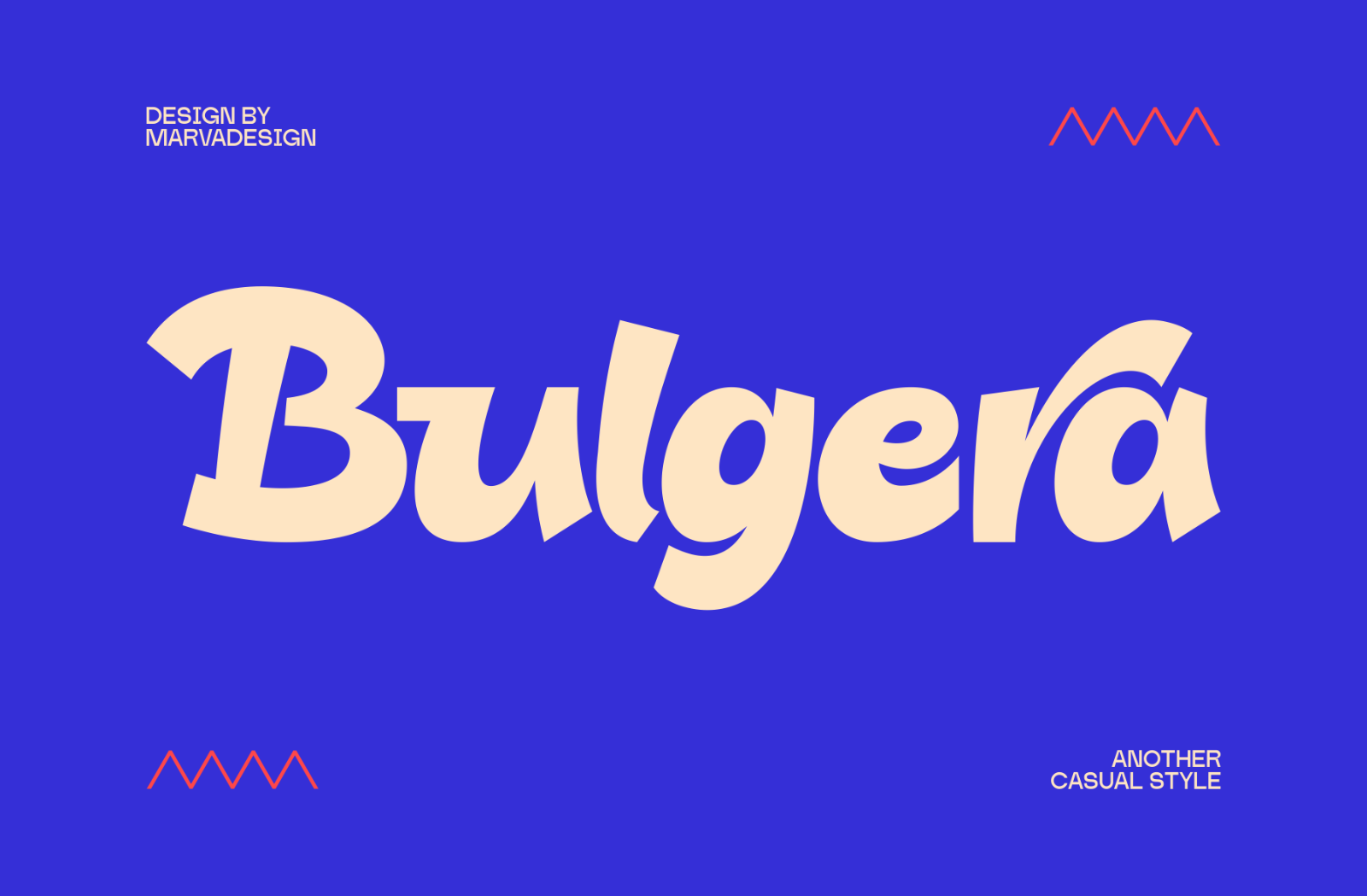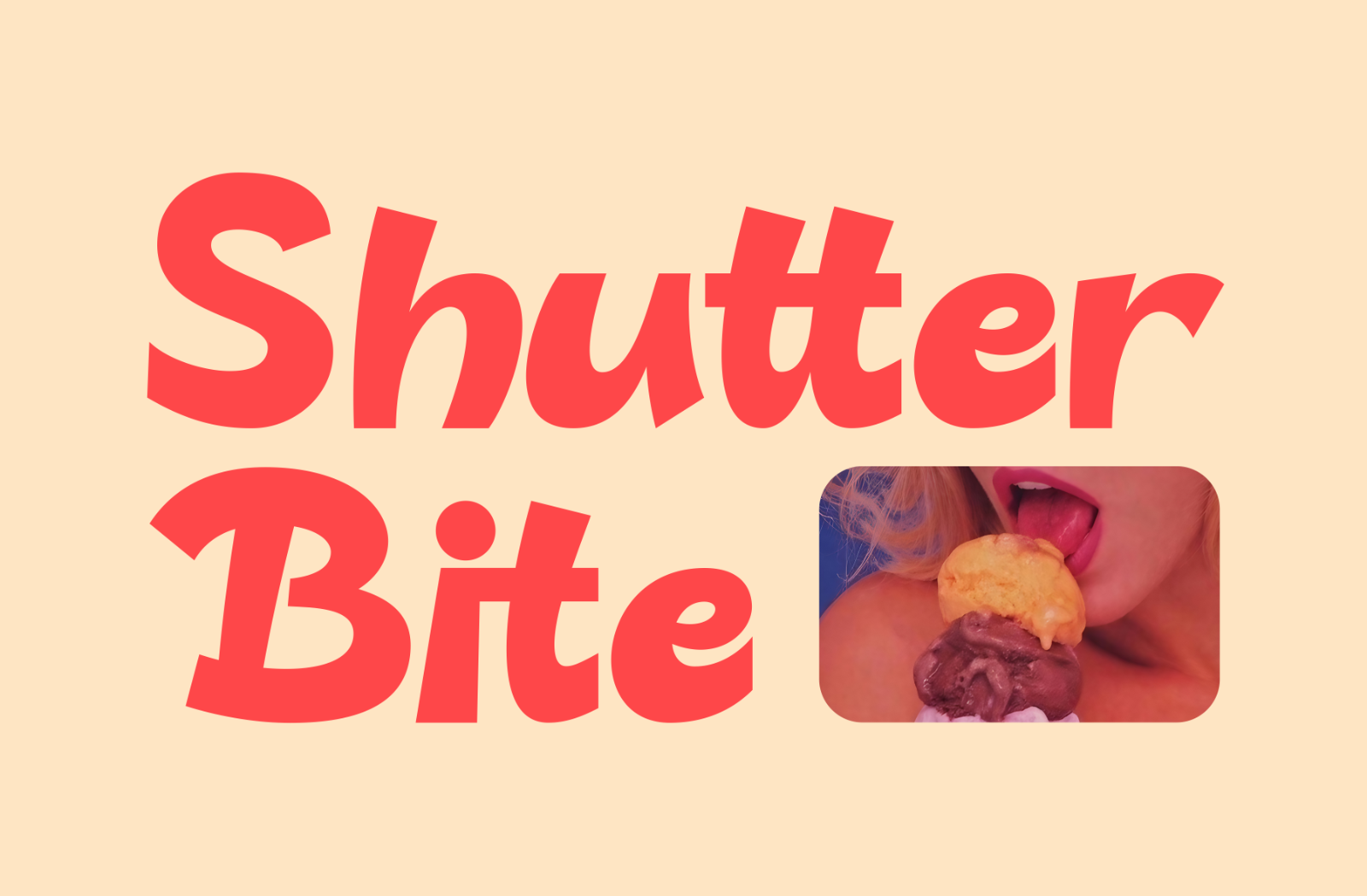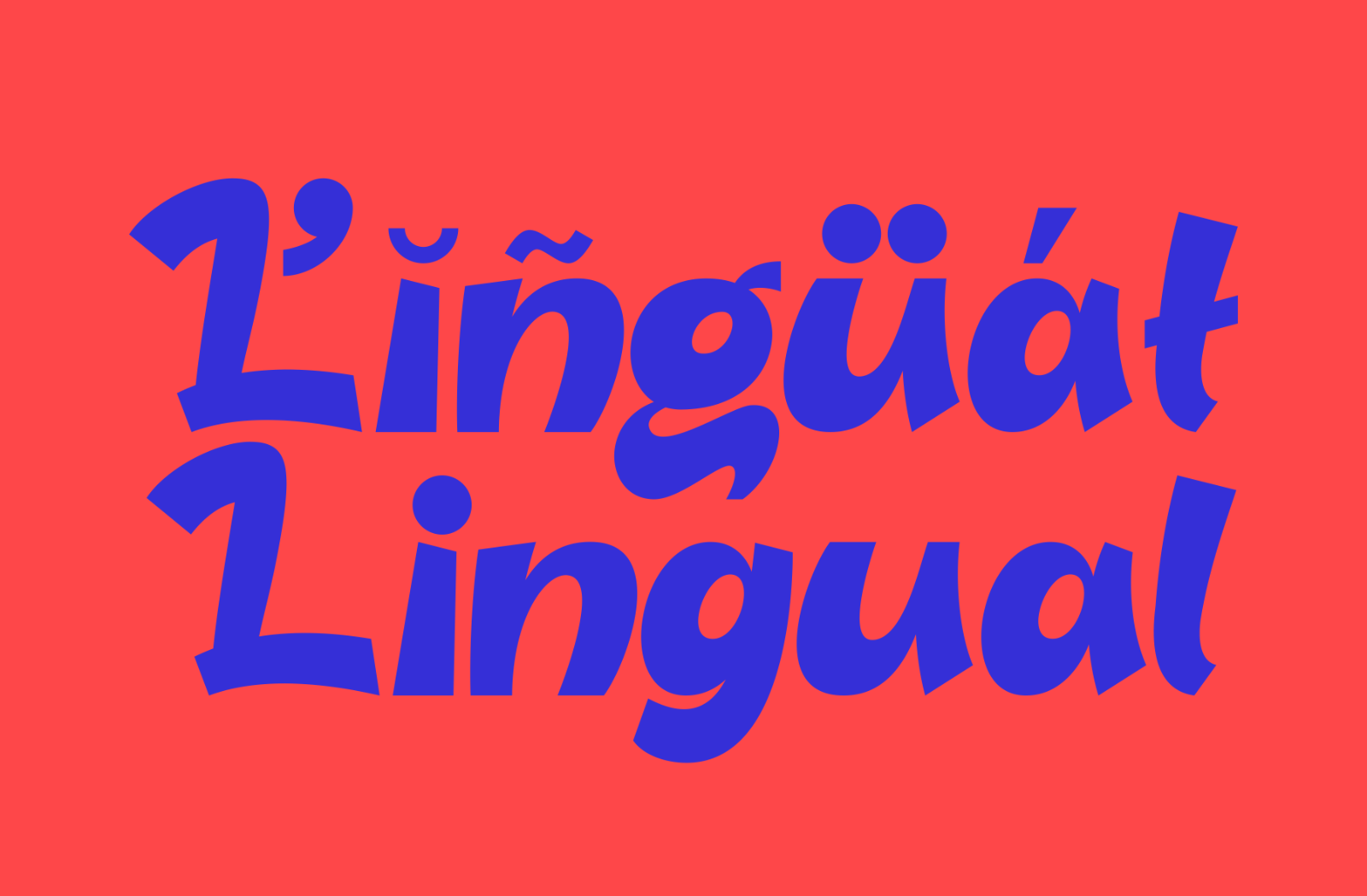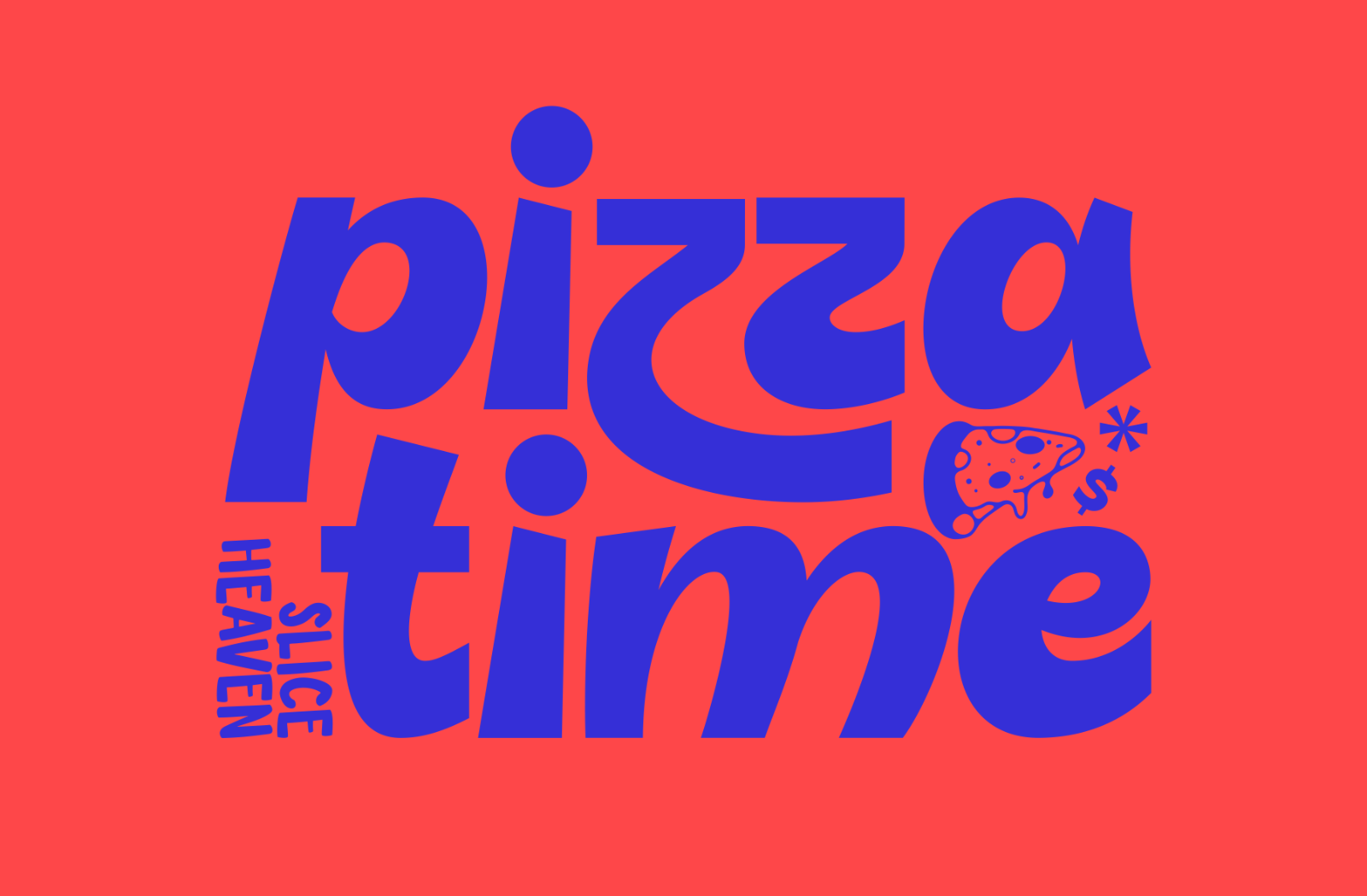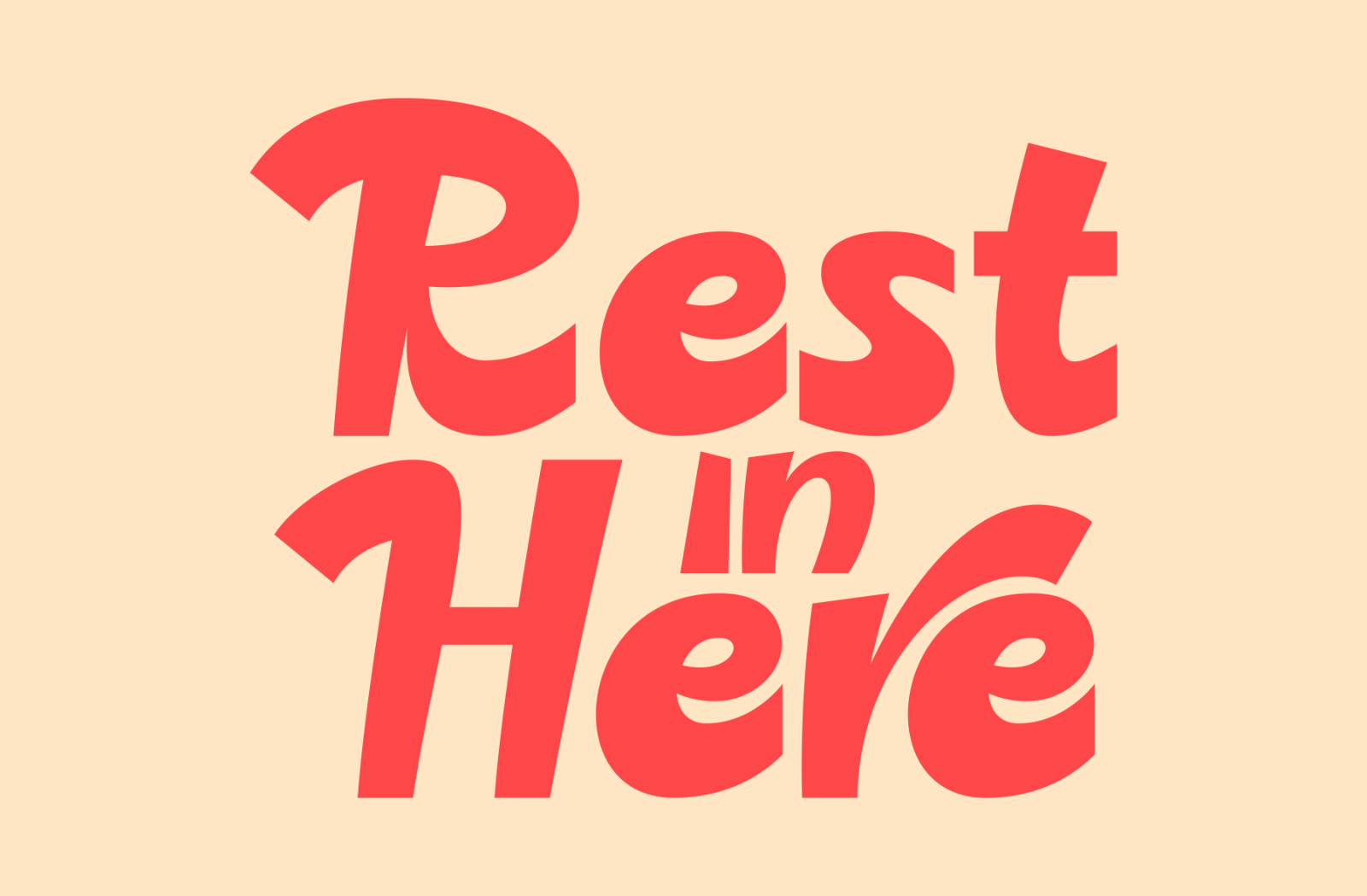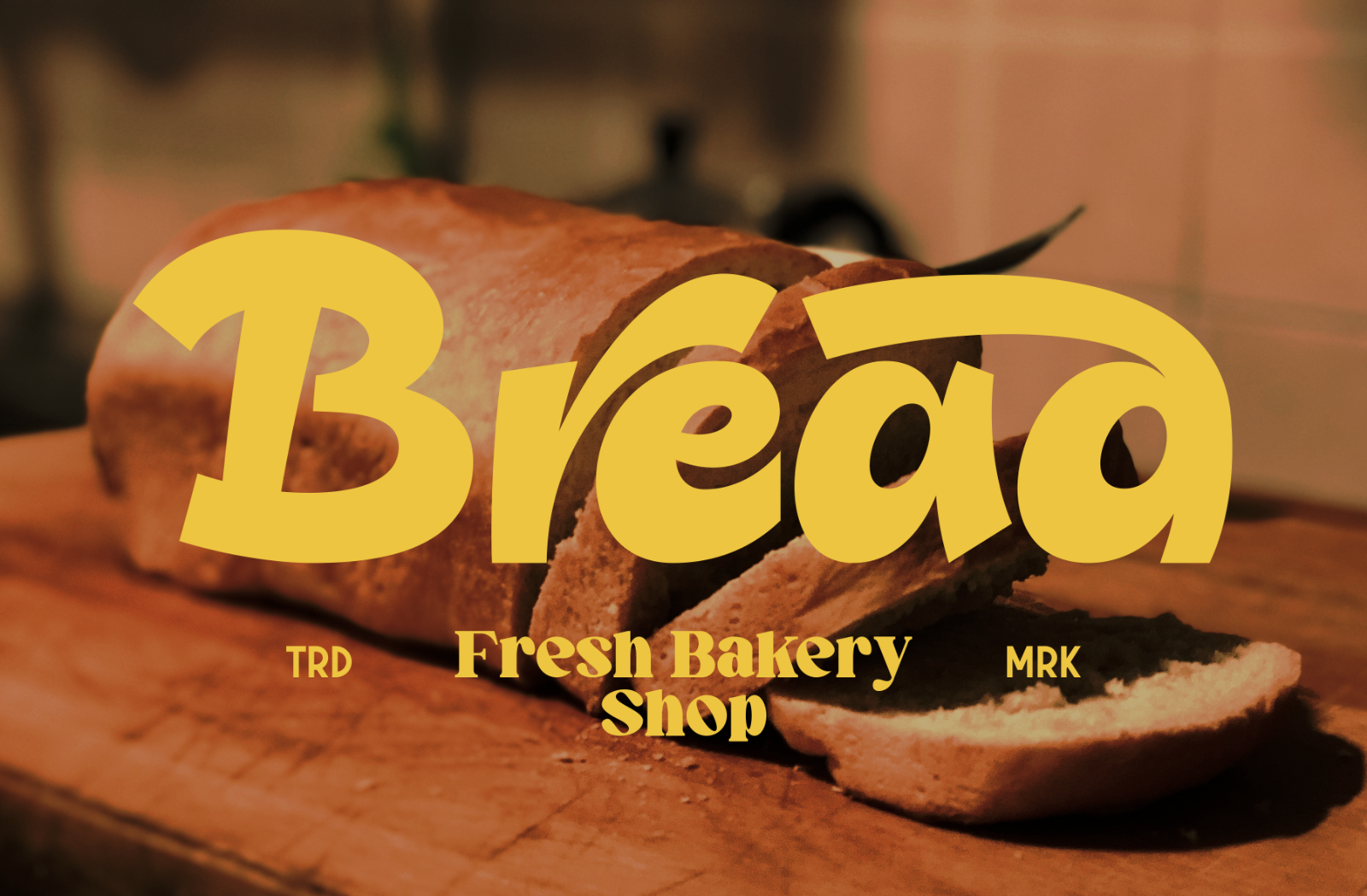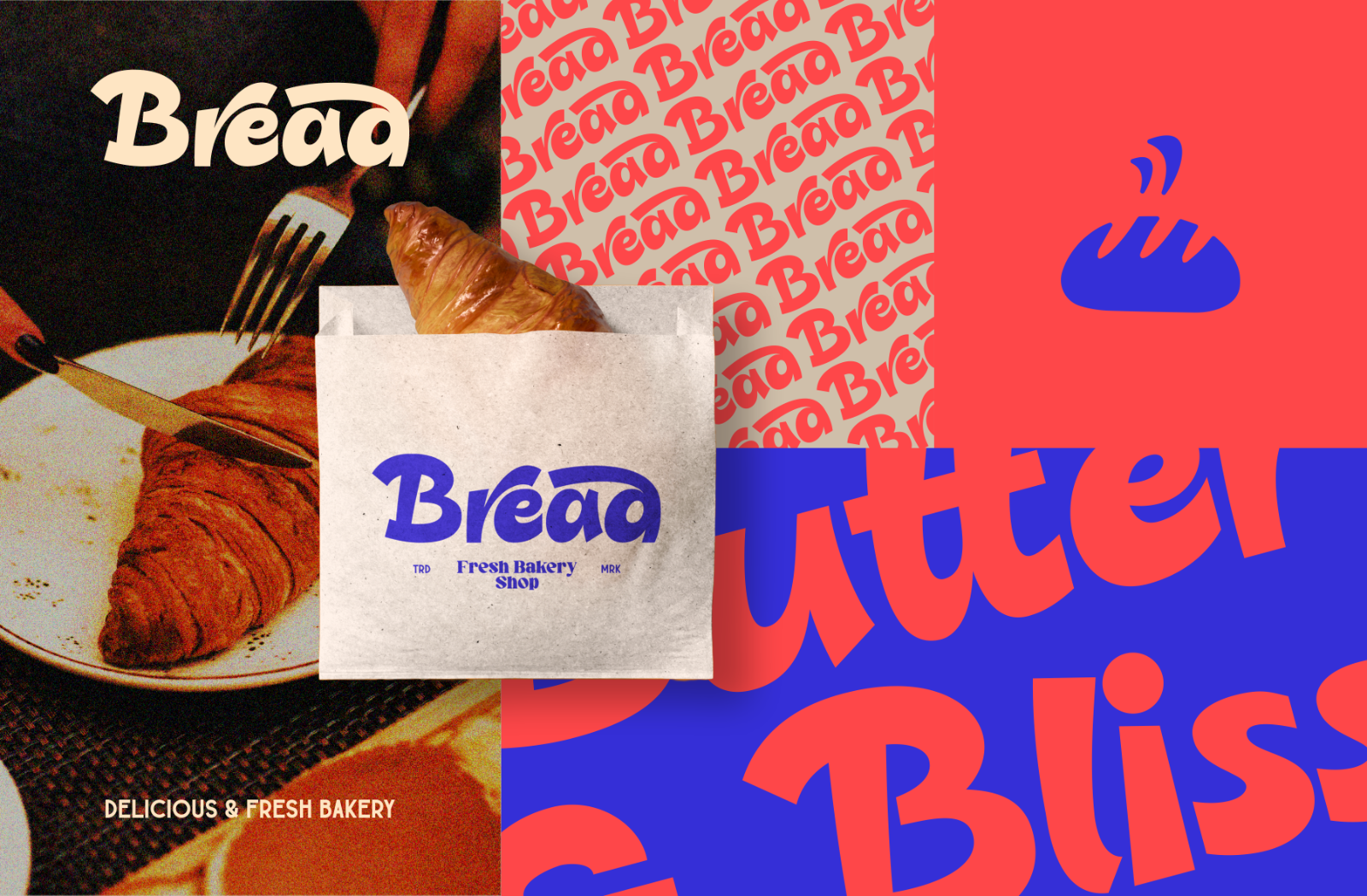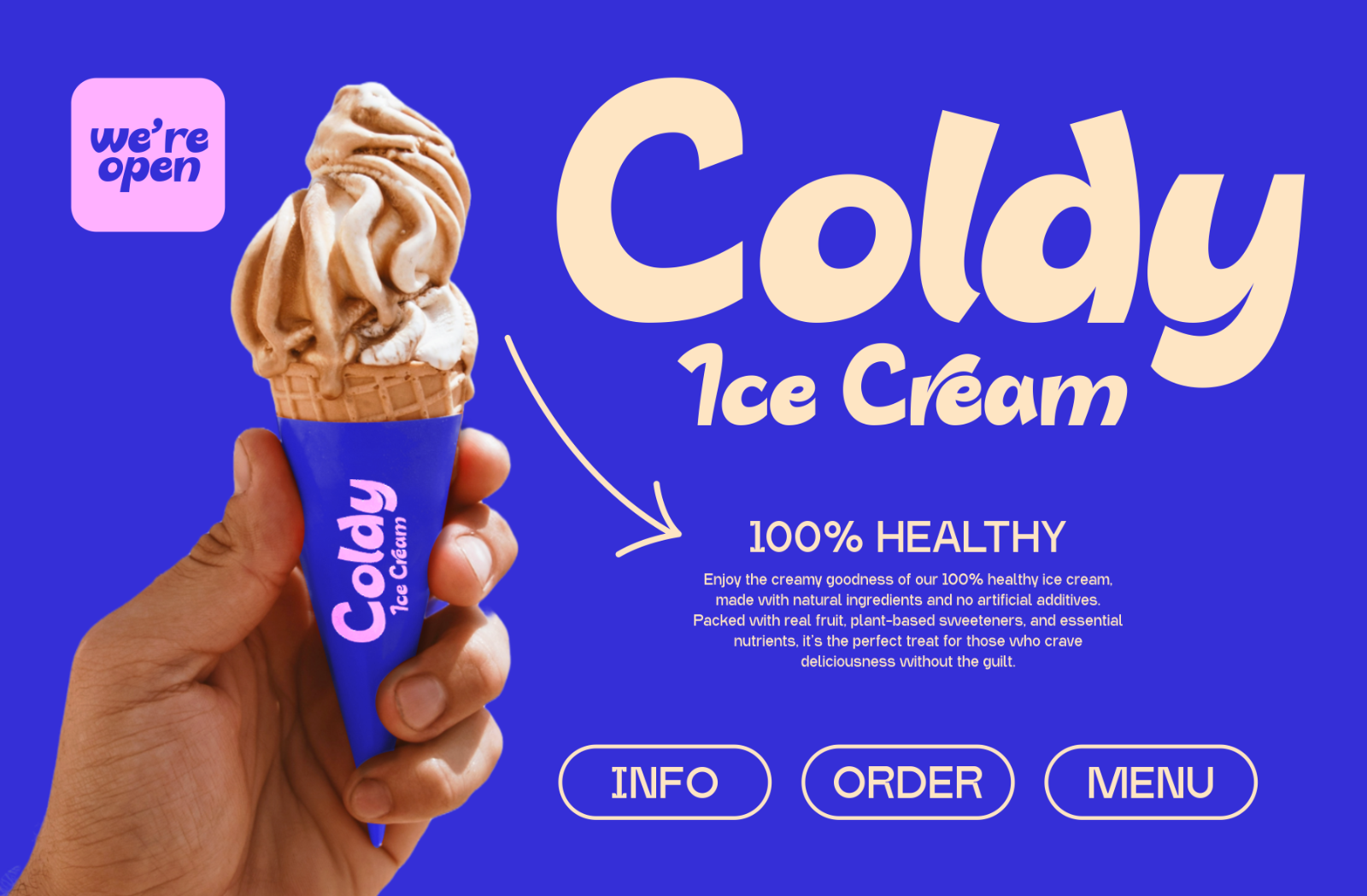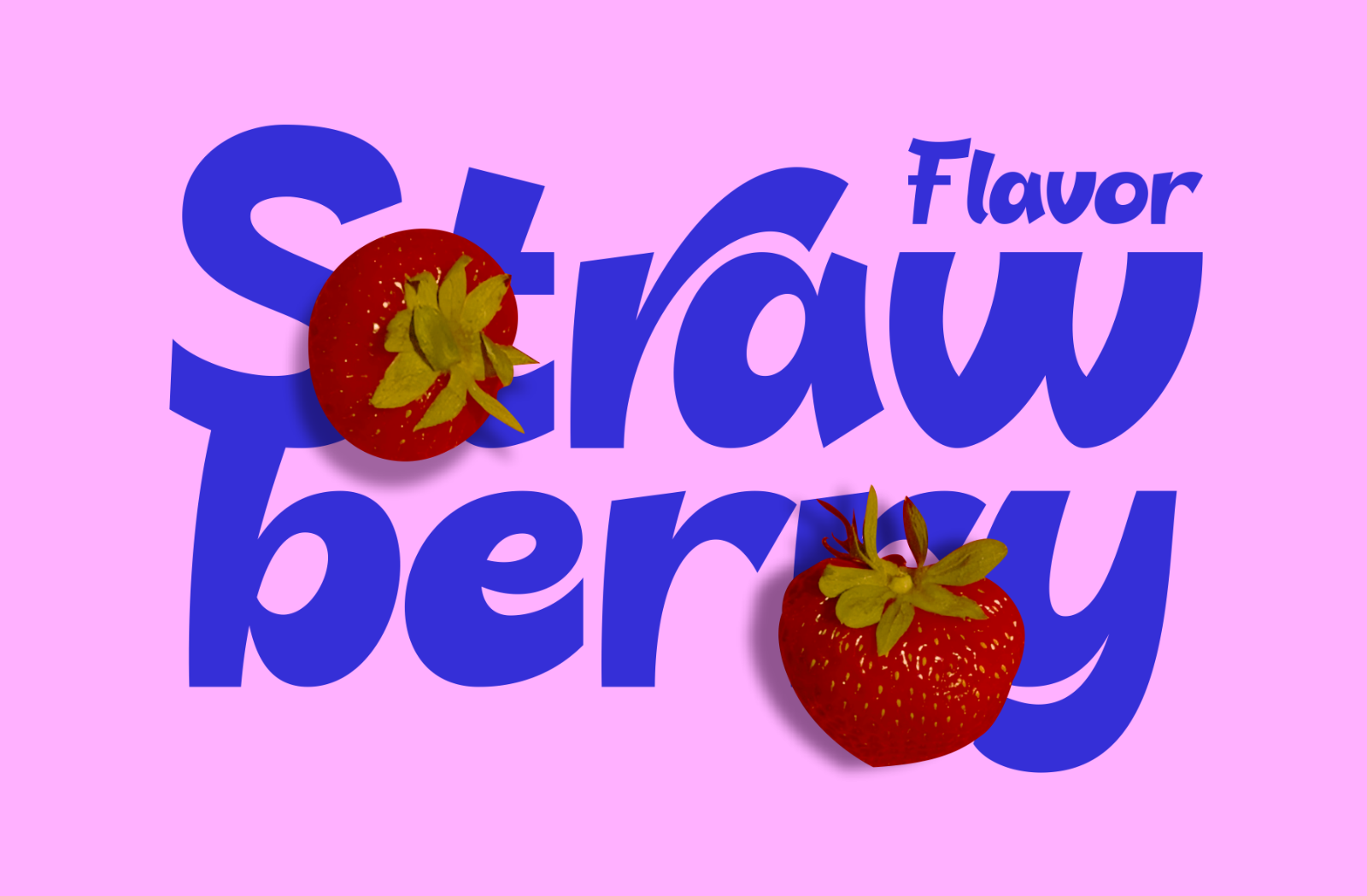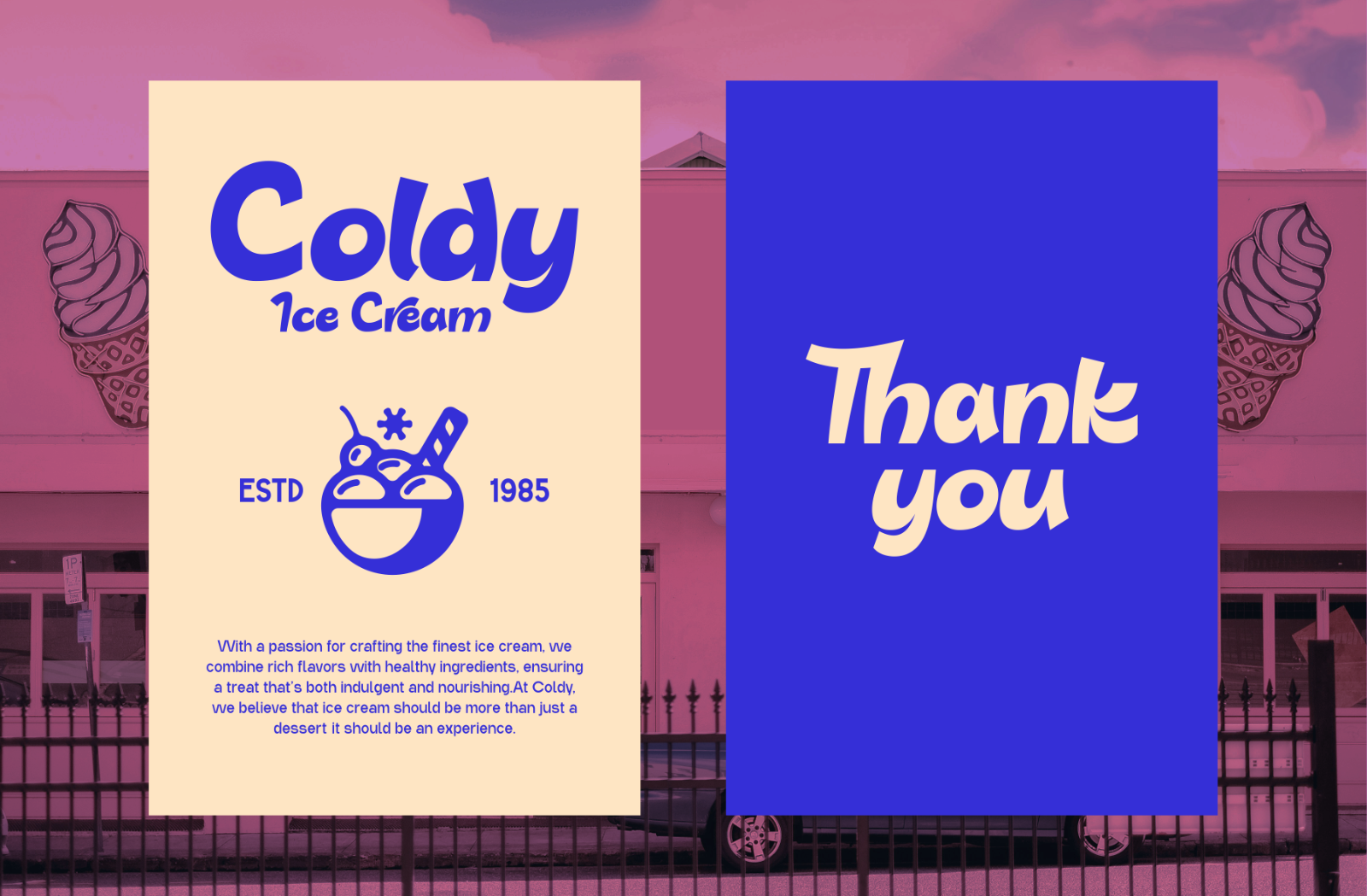
Introducing New Display Typeface Bulgera is exhibit a bold, dynamic, and playful typographic style. They feature smooth curves, exaggerated letterforms, and a slightly slanted orientation, giving them a casual yet modern aesthetic. The thick strokes and rounded edges create a sense of warmth and friendliness, making them ideal for branding, advertising, and creative designs.
Additionally, the fonts employ a contemporary approach with subtle retro influences, reminiscent of vintage signage or hand-painted lettering. Their versatility allows them to be used in food-related branding, casual apparel, or lifestyle product designs. The color combinations further enhance the visual appeal, emphasizing contrast and readability while maintaining a fun and engaging look.